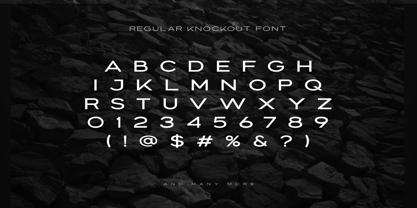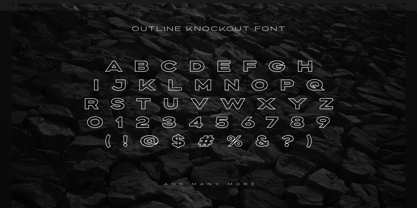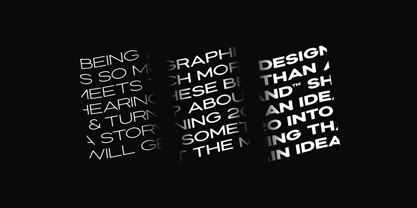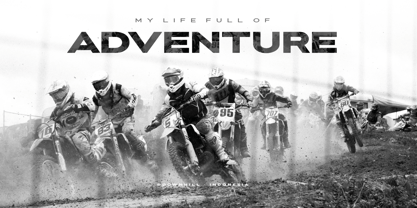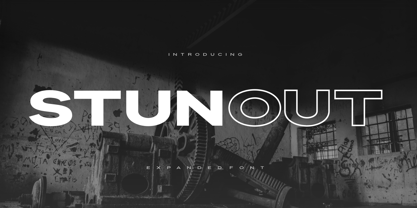
Stunout
by Sensatype Studio
The Stunout Font Family was designed by Zamroni Hamzah and published by Sensatype Studio. Stunout contains 4 styles and family package options. More about this family
Stunout is A sophisticated geometric extended font inspired by popular sans-serif fonts, with some modifications to make it more Modern, Bold, Unique, and Classy-look.
All of them specially crafted to make it easy to combine each other, so we hope just download one and you'll get anything that you need.
Stunout Font Includes:
• Advanced Character Set for Multi-Language Support
• All-Caps Characters
• Numbers
• Punctuation
• 4 Styles: Light, Regular, Bold, and Outline